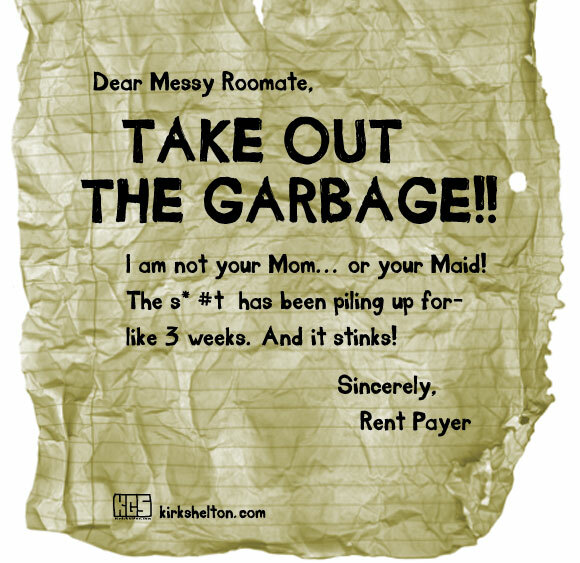
Take Out the Garbage is a free eroded display font with the raw look of hand-painted lettering. Its rounded forms lean and wobble, and the strokes shift noticeably in width. Scraped edges and dry gaps keep the surface rough.
Its grunge character suits music posters and skate merchandise, where imperfect lettering belongs with distressed artwork. Food packaging can also use its handmade shapes for an offbeat label. The likely audience is designers working with punk, street, or do-it-yourself themes.